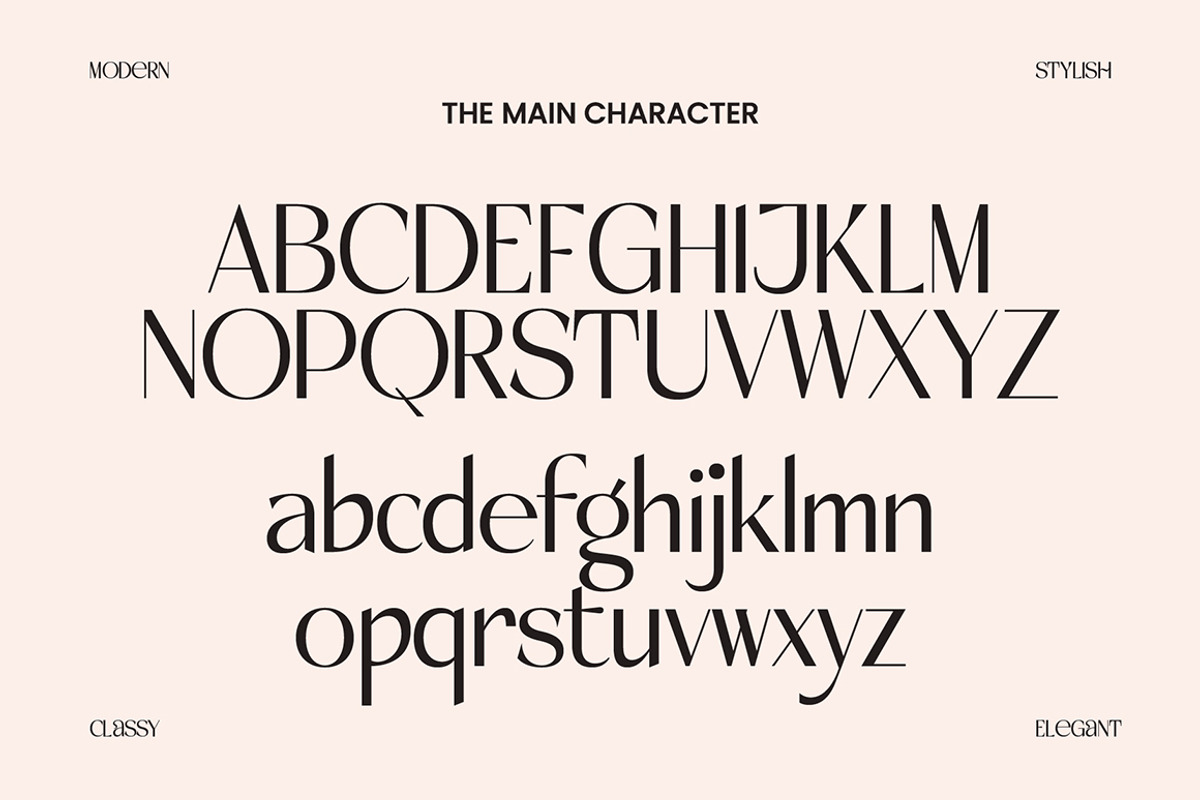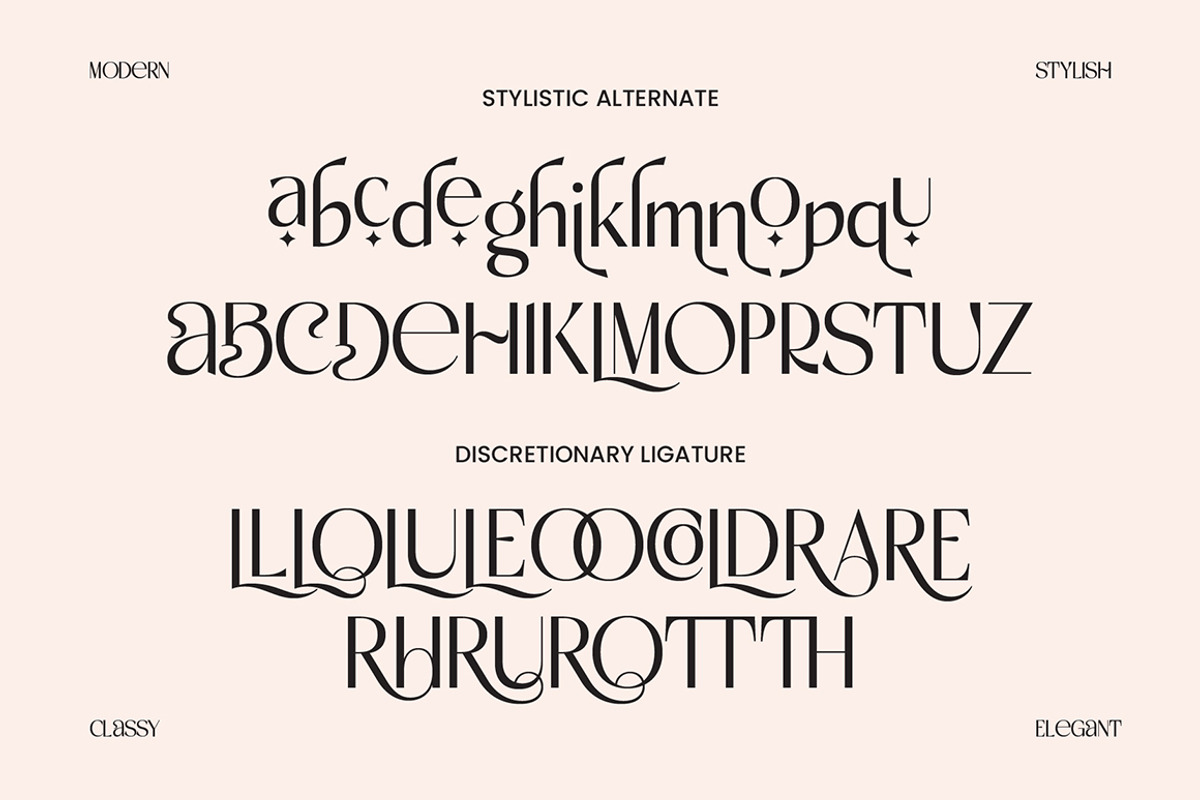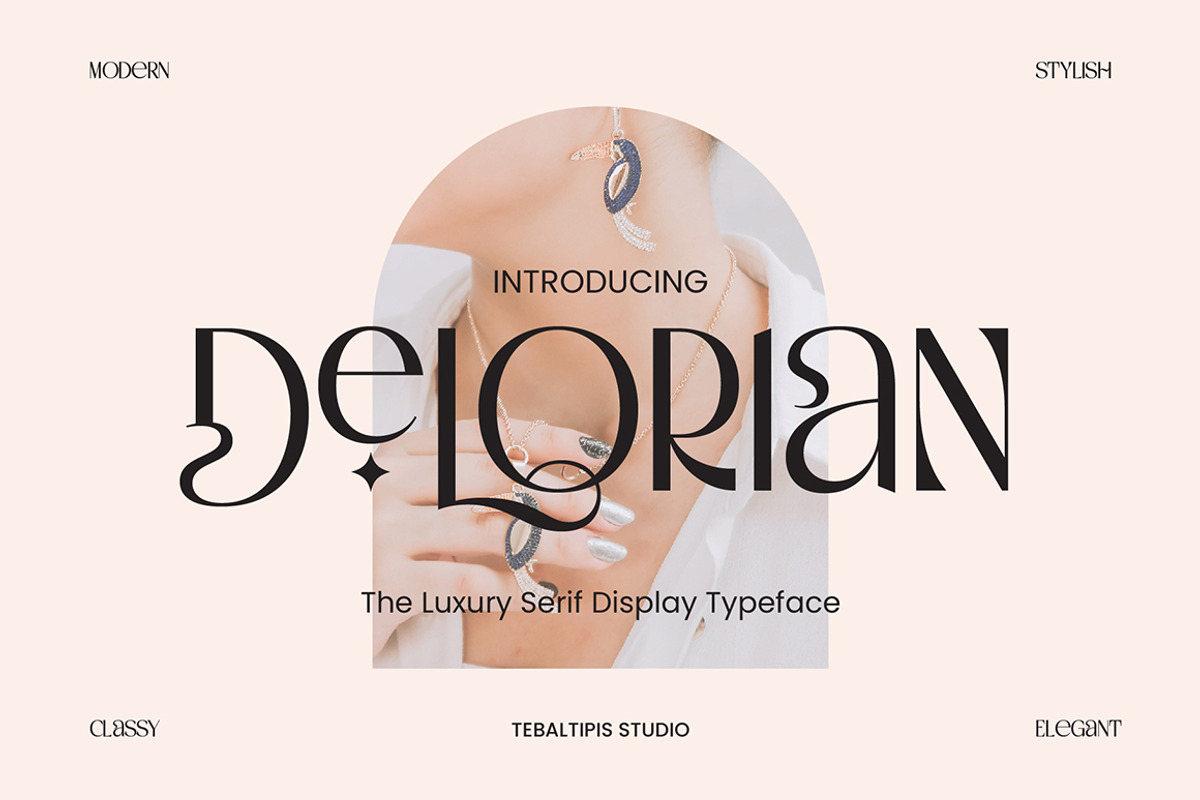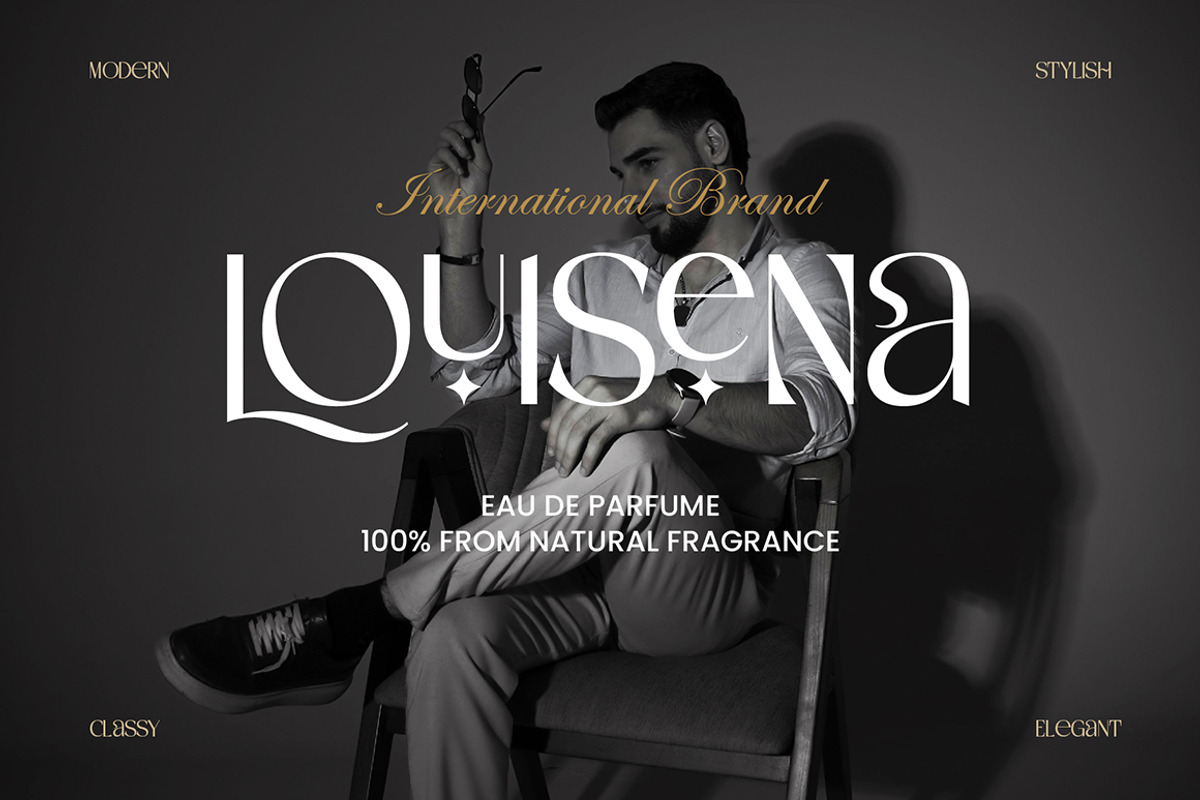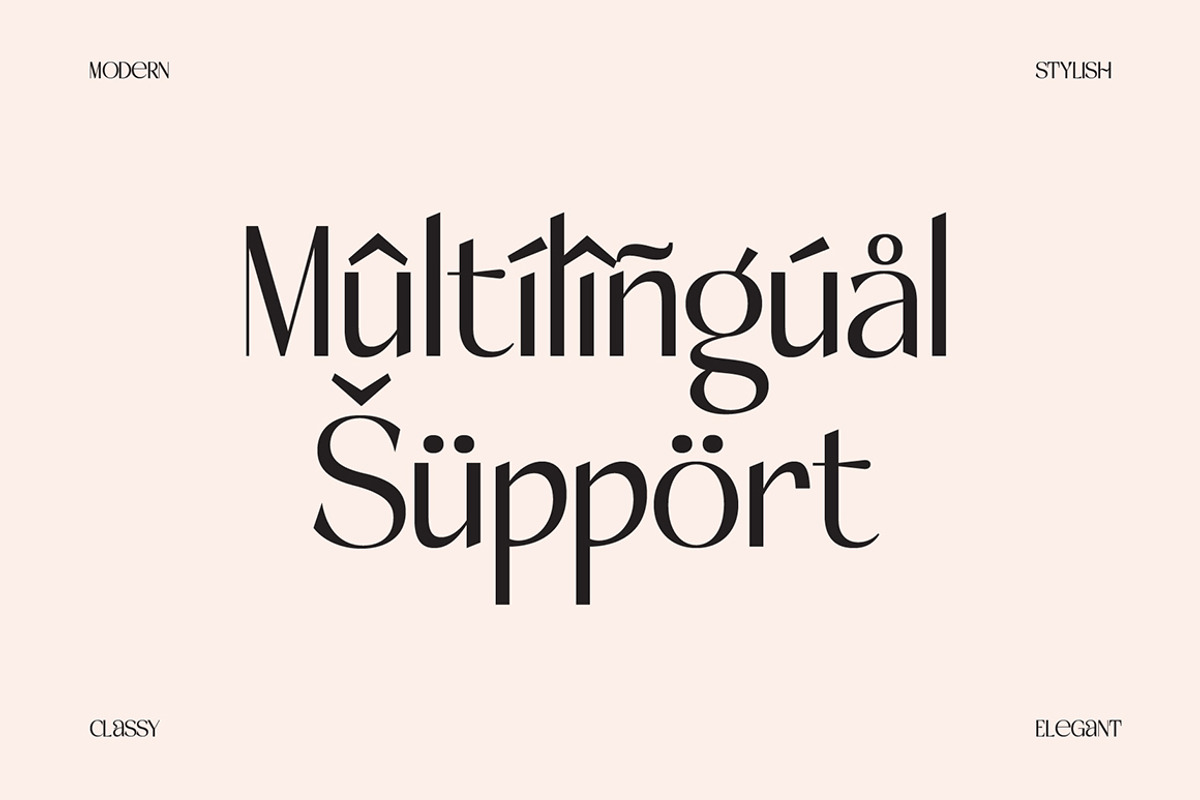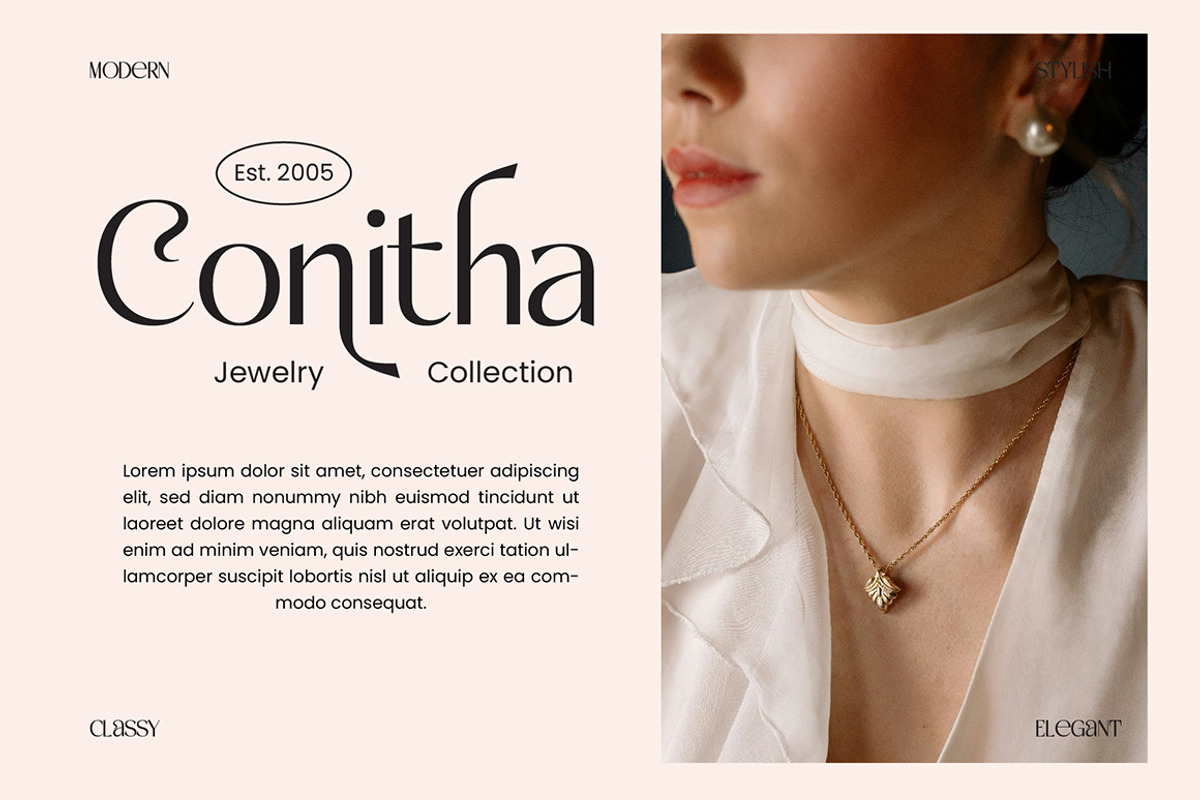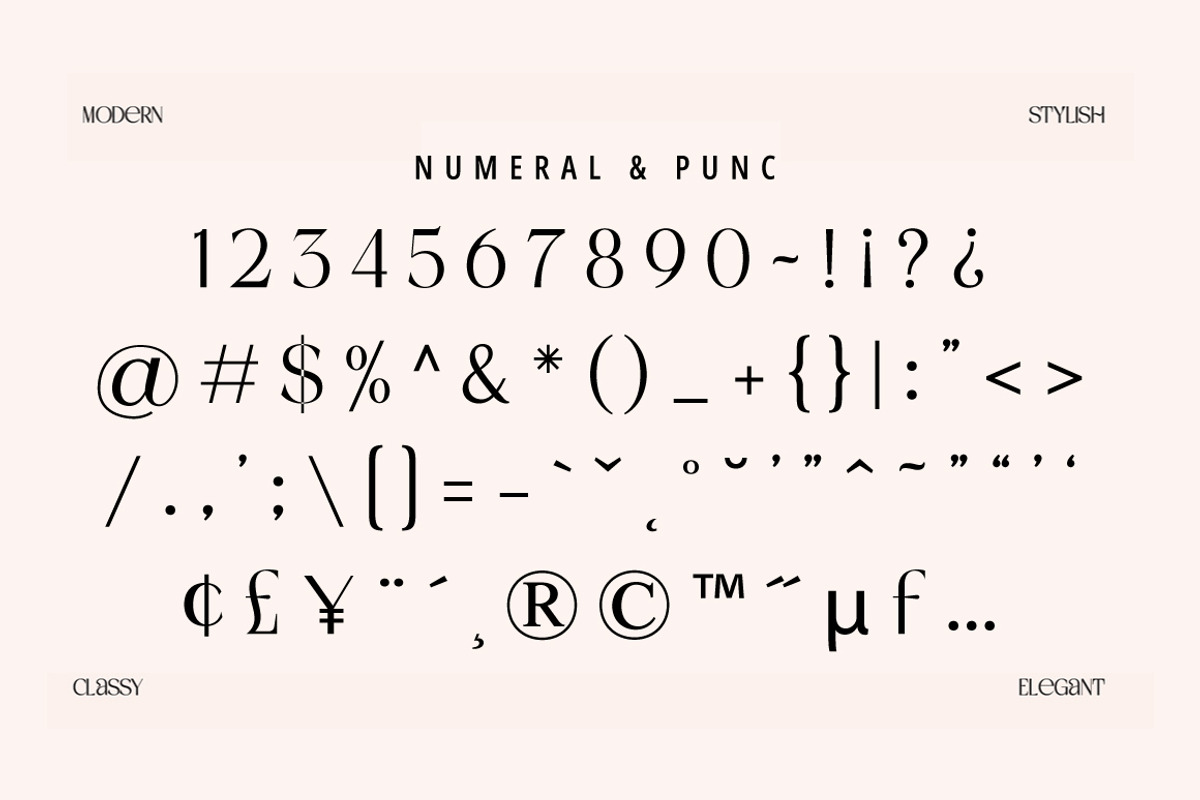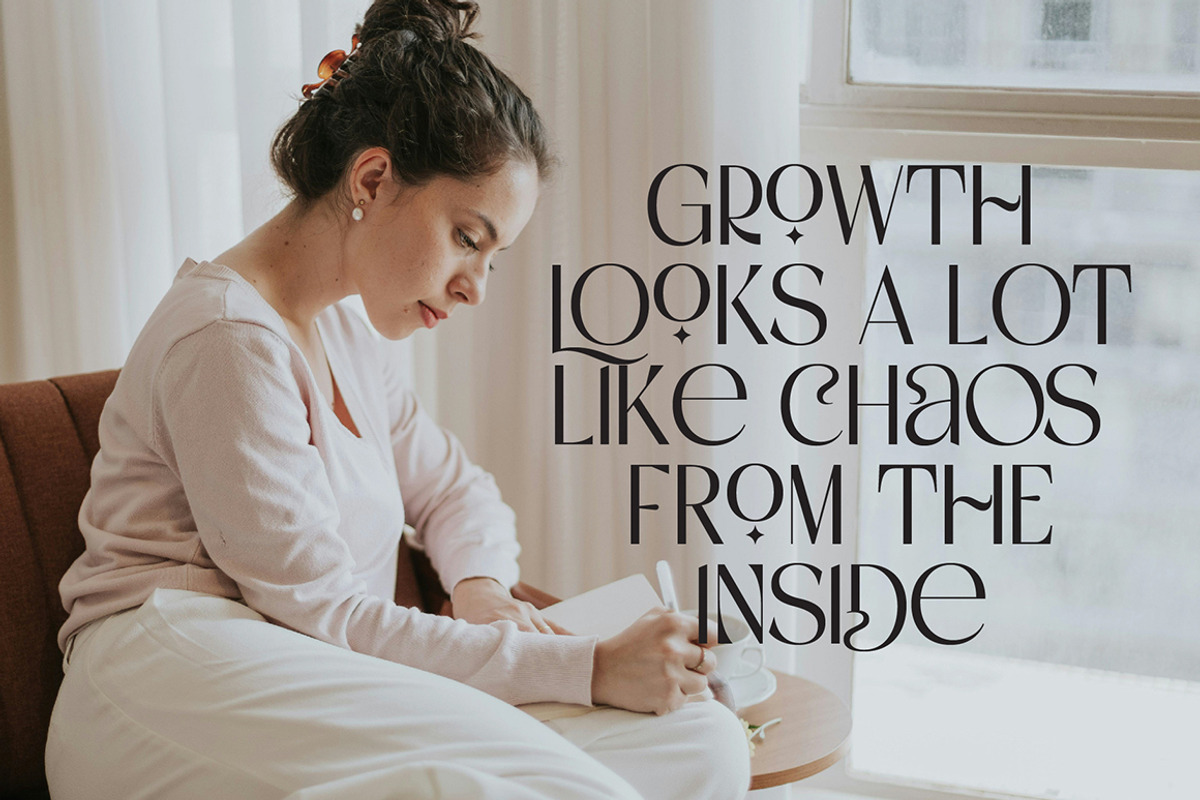
Delorian - Luxury Modern Classy
A Modern Classy Luxury Font that we created special for Luxury and Fashion branding needs, with extra characters alternate in unique shape will be ready to add value of your brand. It so nice to leverage designer or product owner that need solutions to make their design look more classy and modern. And specially for this font, We prepared any alternate characters to help you create unlimited variations for your creative needs.
Delorian Display Font come with 200+ glyphs. The alternative characters were divided into several Open Type features such as Swash, Stylistic Sets, Stylistic Alternates, and Ligature. The Open Type features can be accessed by using Open Type savvy programs such as Adobe Illustrator, Adobe InDesign, Adobe Photoshop Corel Draw X version, And Microsoft Word. And this Font has given PUA unicode (specially coded fonts). so that all the alternate characters can easily be accessed in full by a craftsman or designer.
Delorian Display :
Uppercase & Lowercase International Languange & Symbols Support Punctuation & Number PUA Unicode Range Standard Ligatures Discretionary Ligatures Stylistic Alternates Stylistic Set.